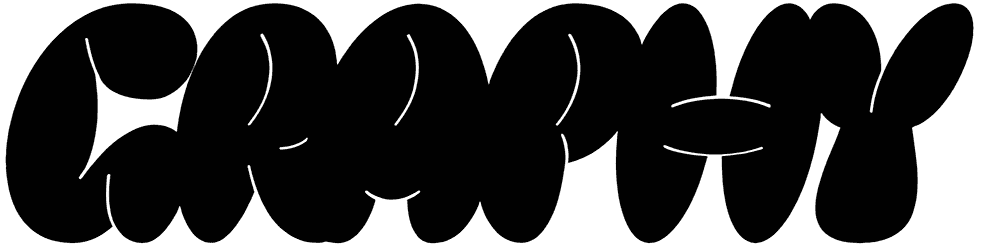
Graphy Font
Let us stop you right there before you fall in love with the cute touch of Graphy and make up your mind about using this balloon font for your next typography. You have every right to admire the playfulness of it, but you probably shouldn’t if your writing includes any numbers or punctuation marks because Graphy can’t provide you with any of those. Still, this fat graffiti font can be your best shot for acing your HBD posters, gaming designs, etc.